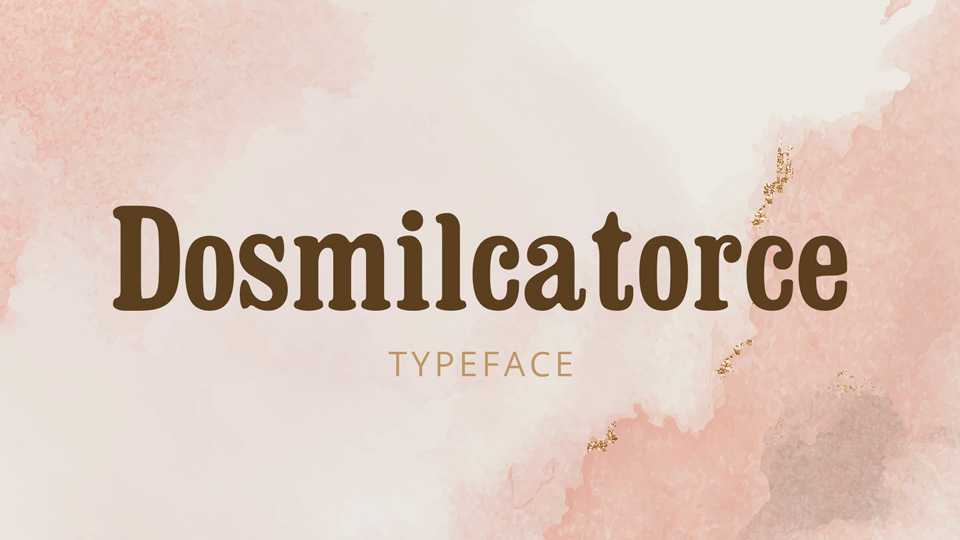
Download Dosmilcatorce font, a soft and rounded serif typeface with vintage feel. Dosmilcatorce font looks beautiful for logos, badges, branding, cards and other old style designs.
Designer: Woodcutter